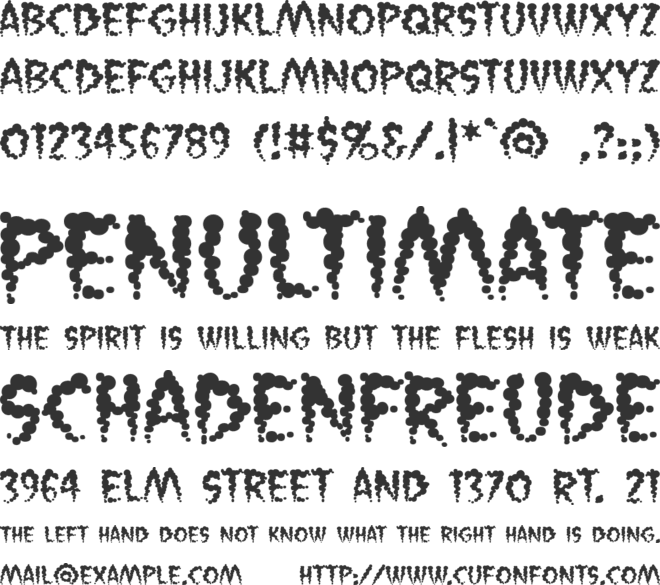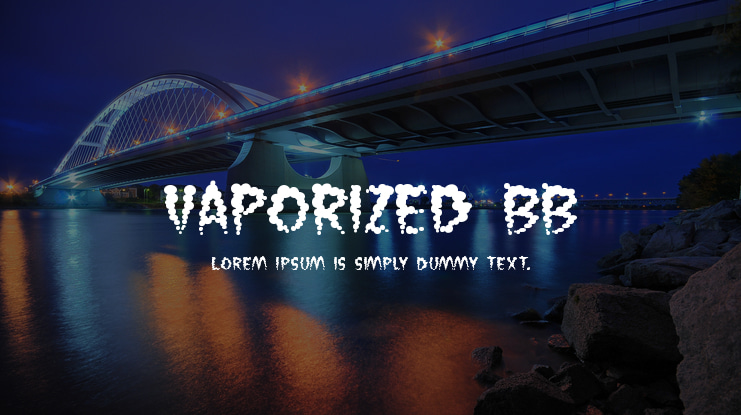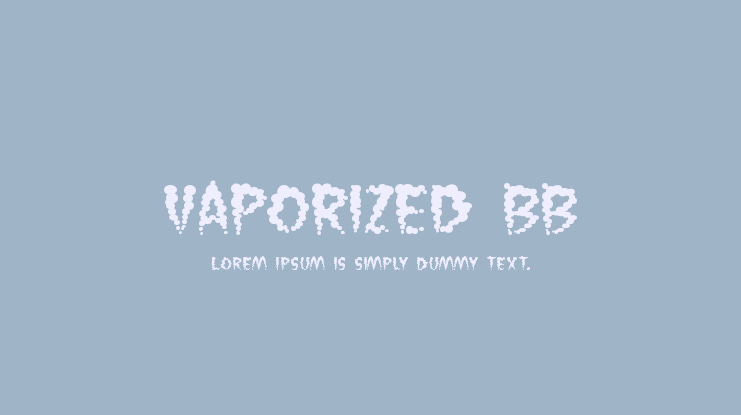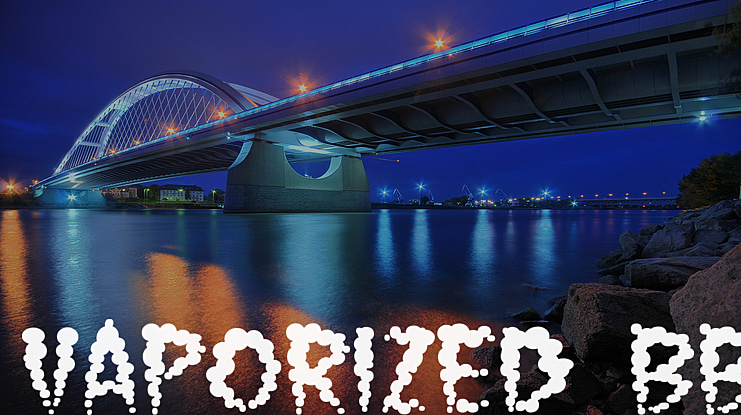
Vaporized BB Font Family
VAPORIZED BB is the new free sound effects font! It works great for smoky/cloudy effects and sizzling energy beam blasts. Includes Regular and Italic.